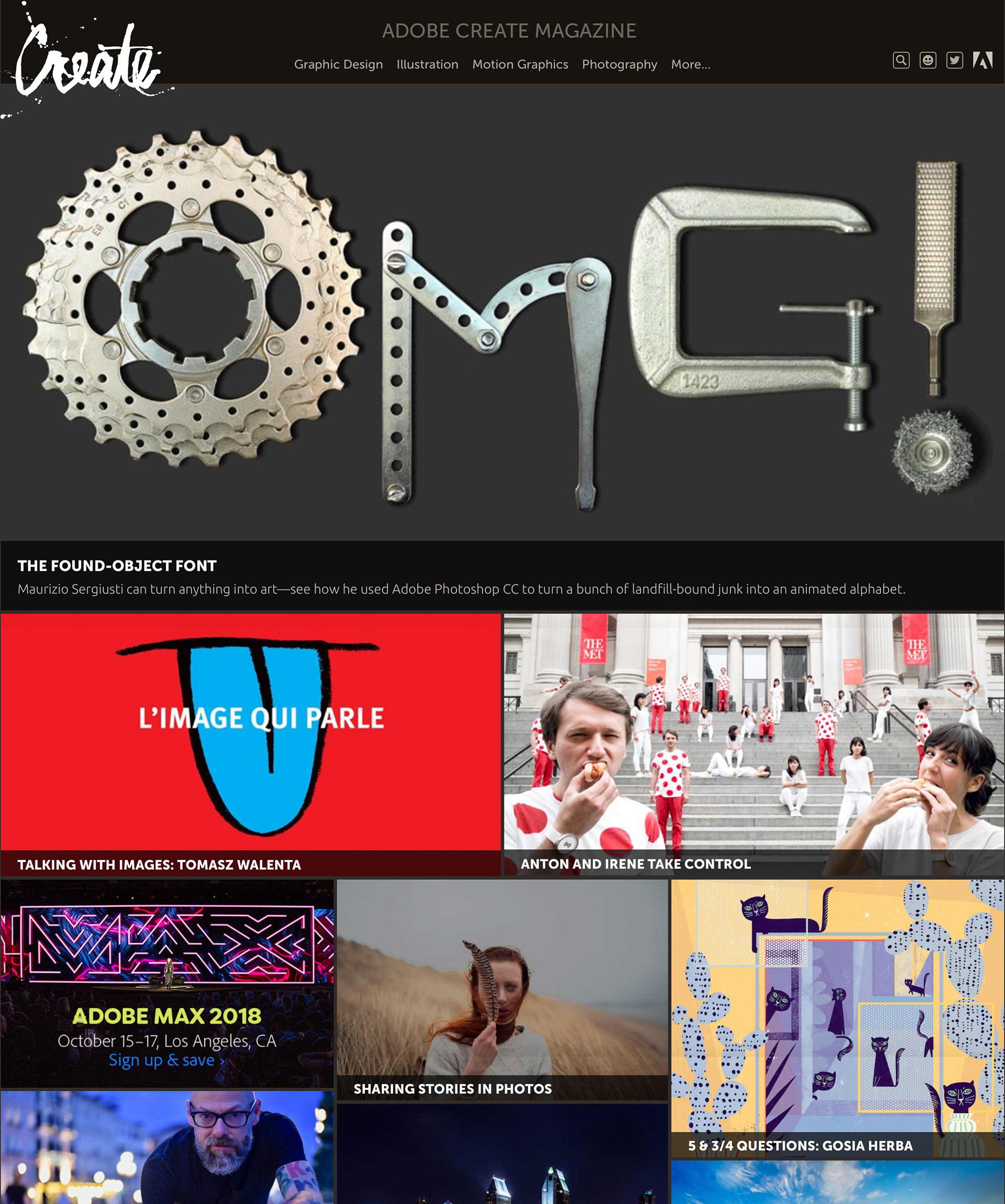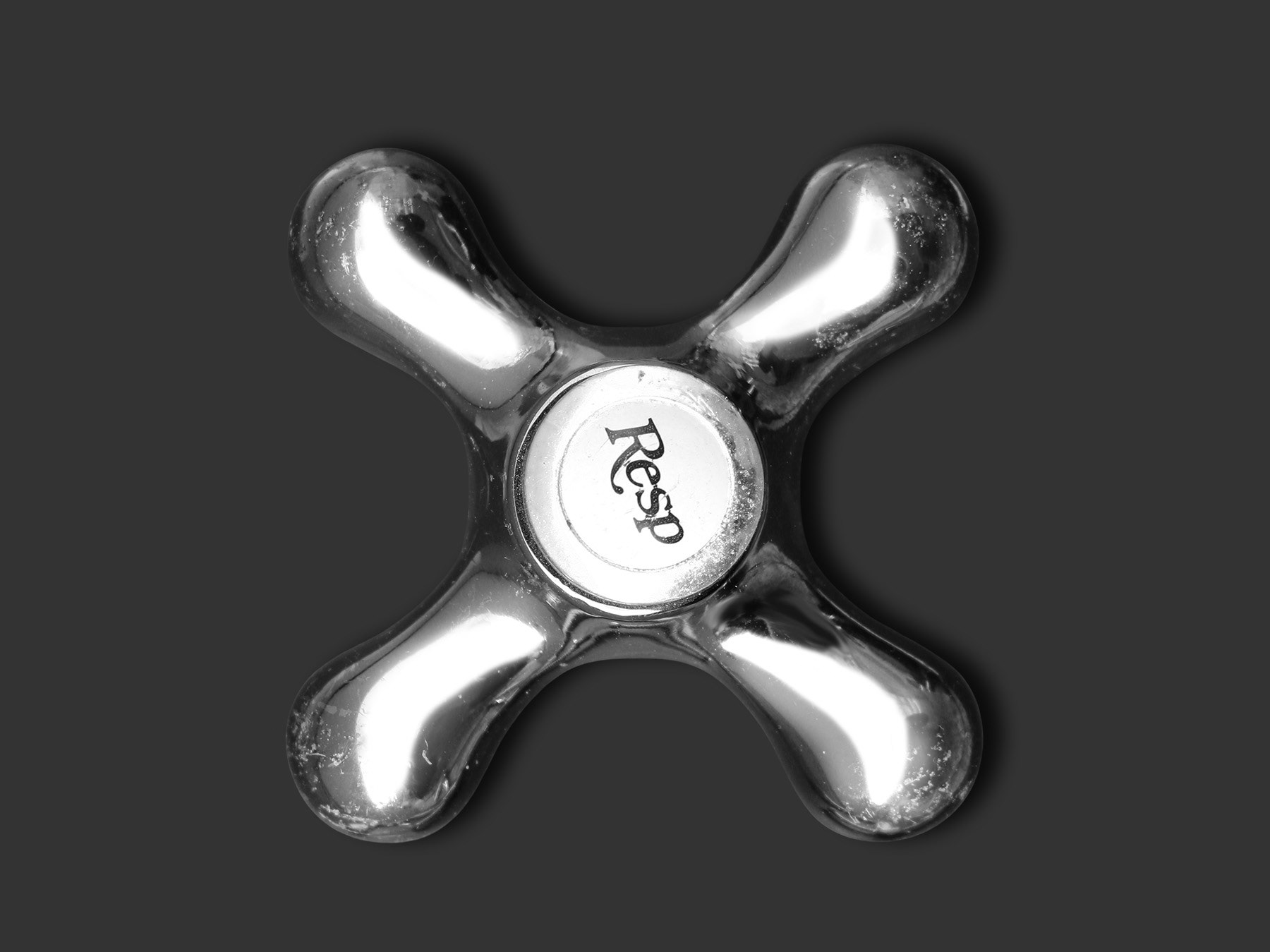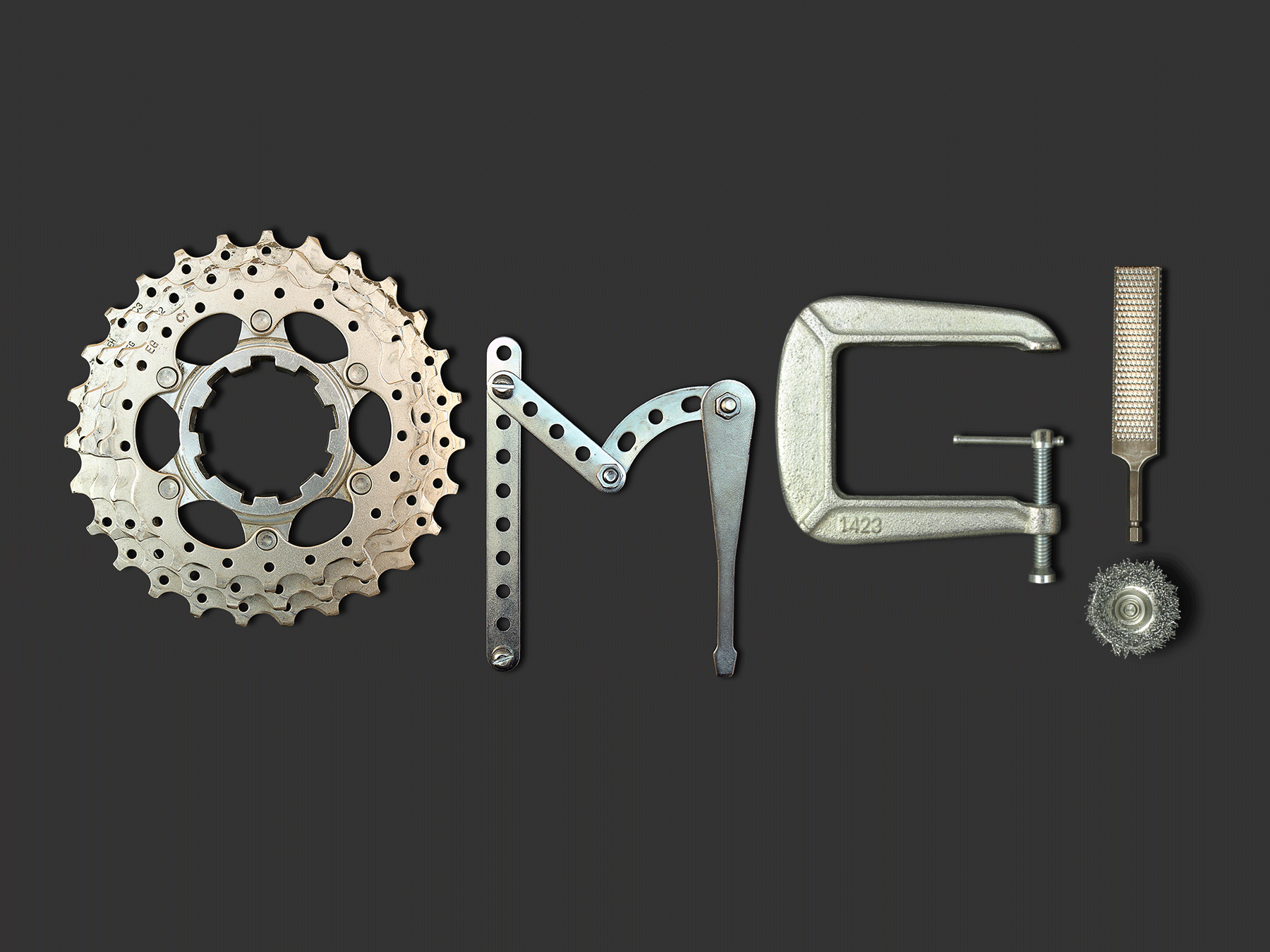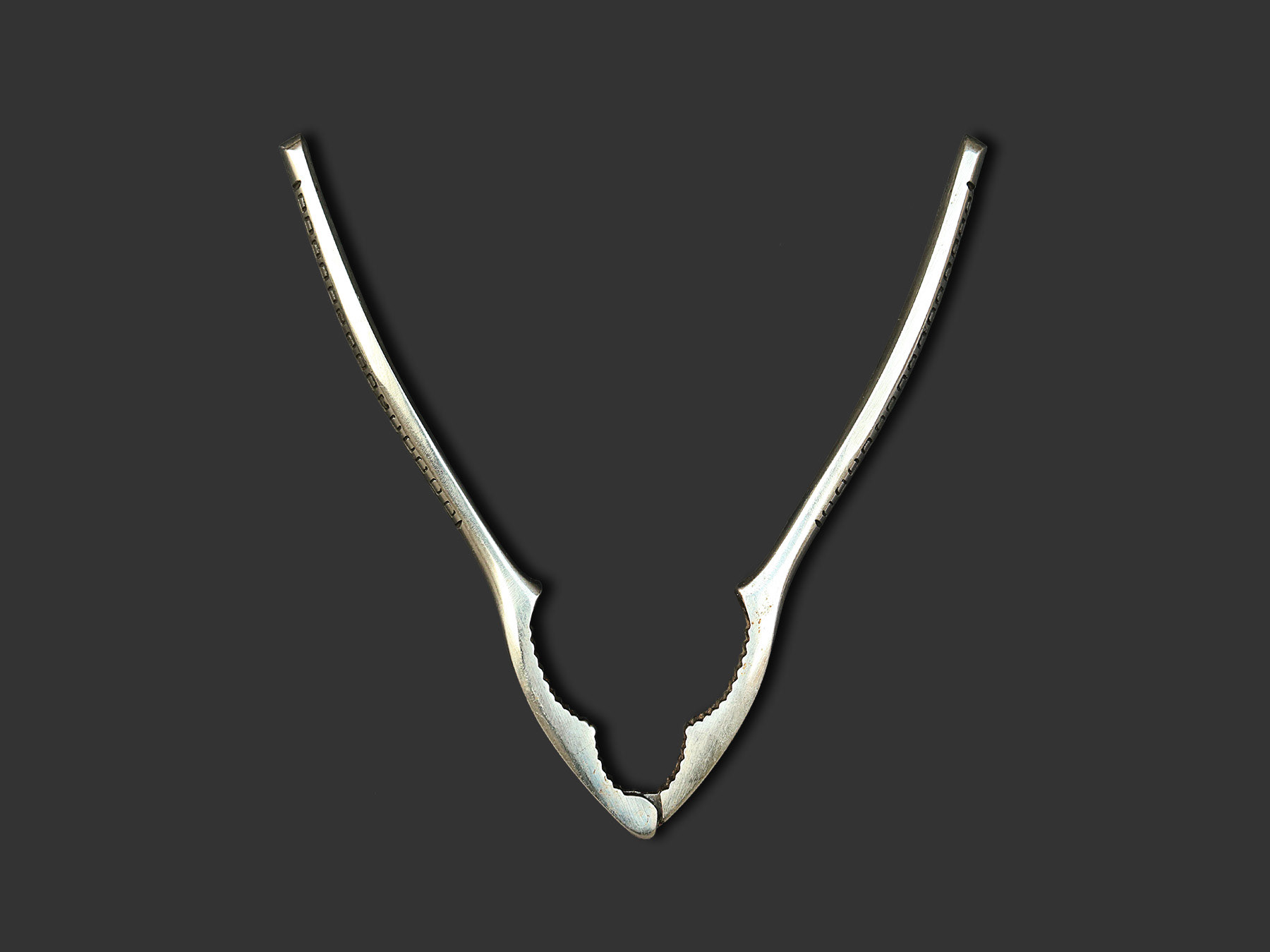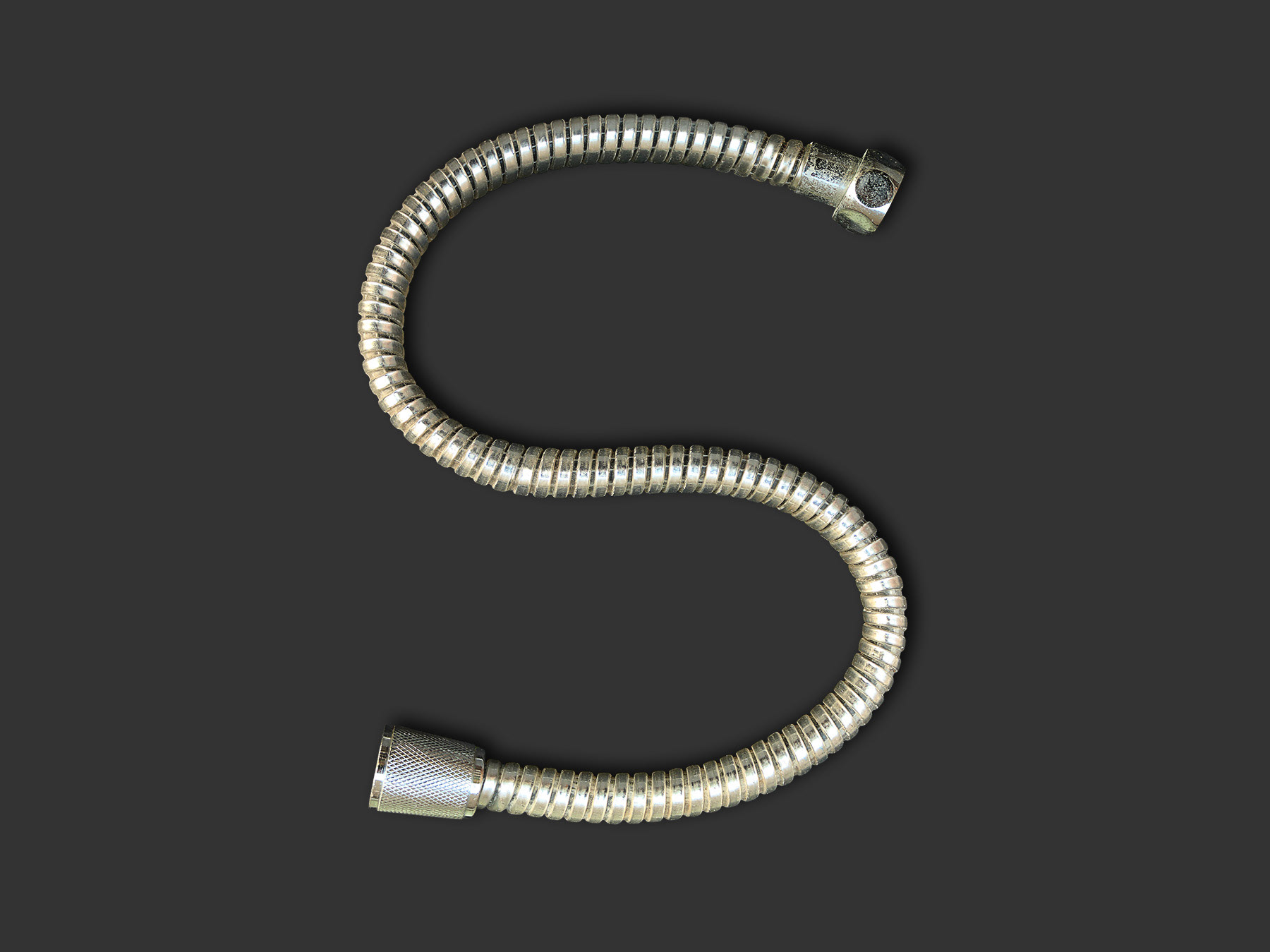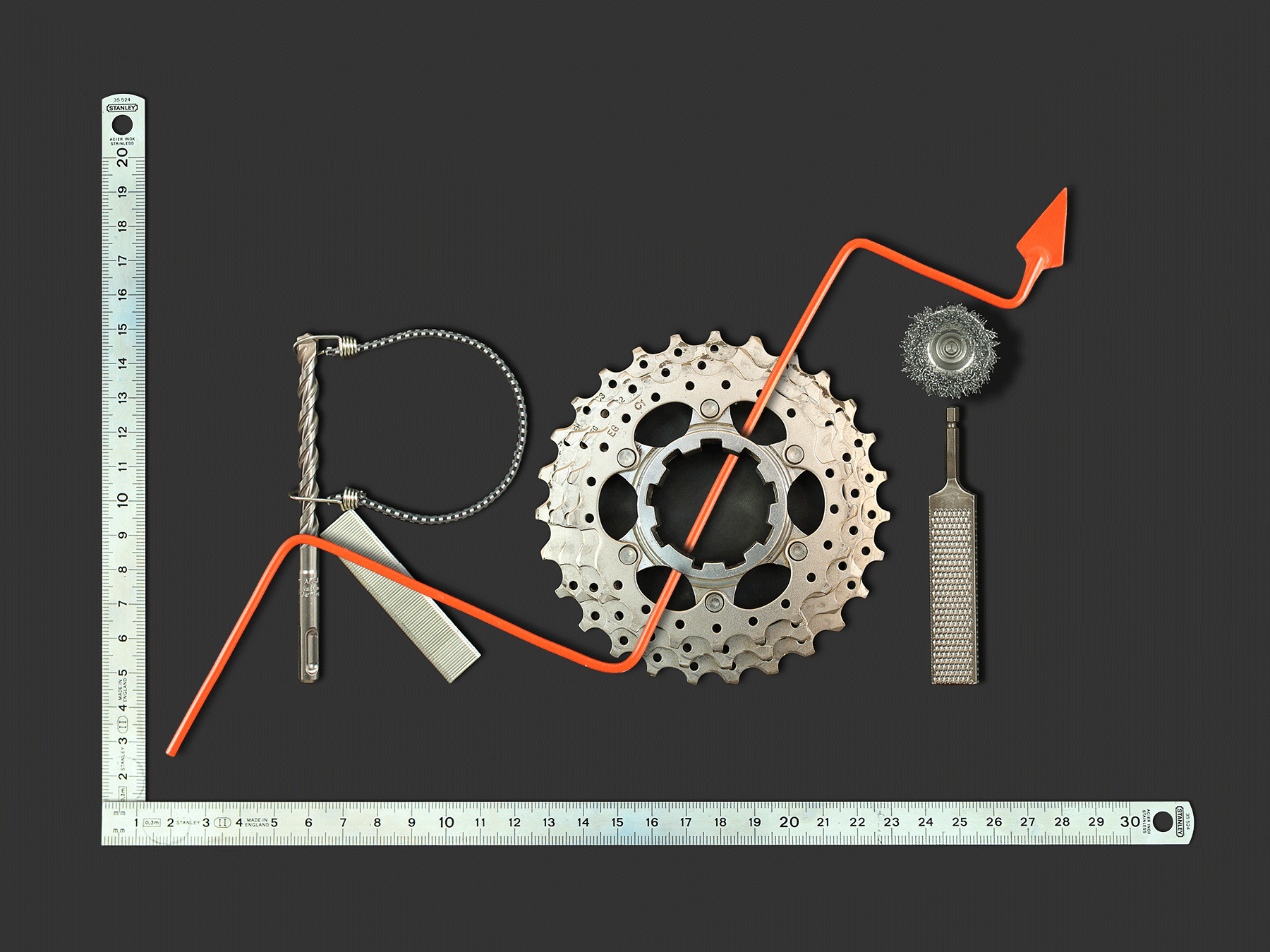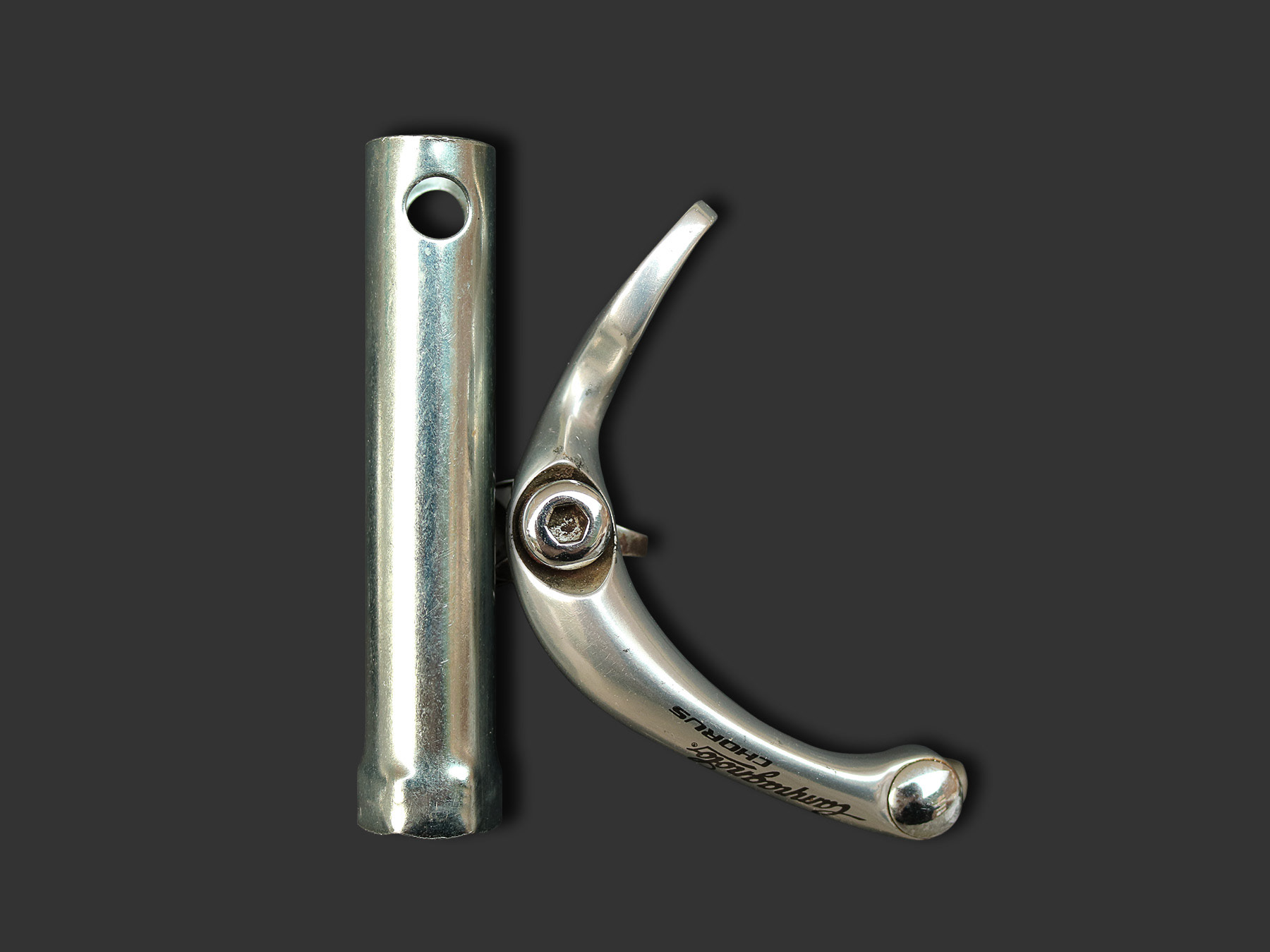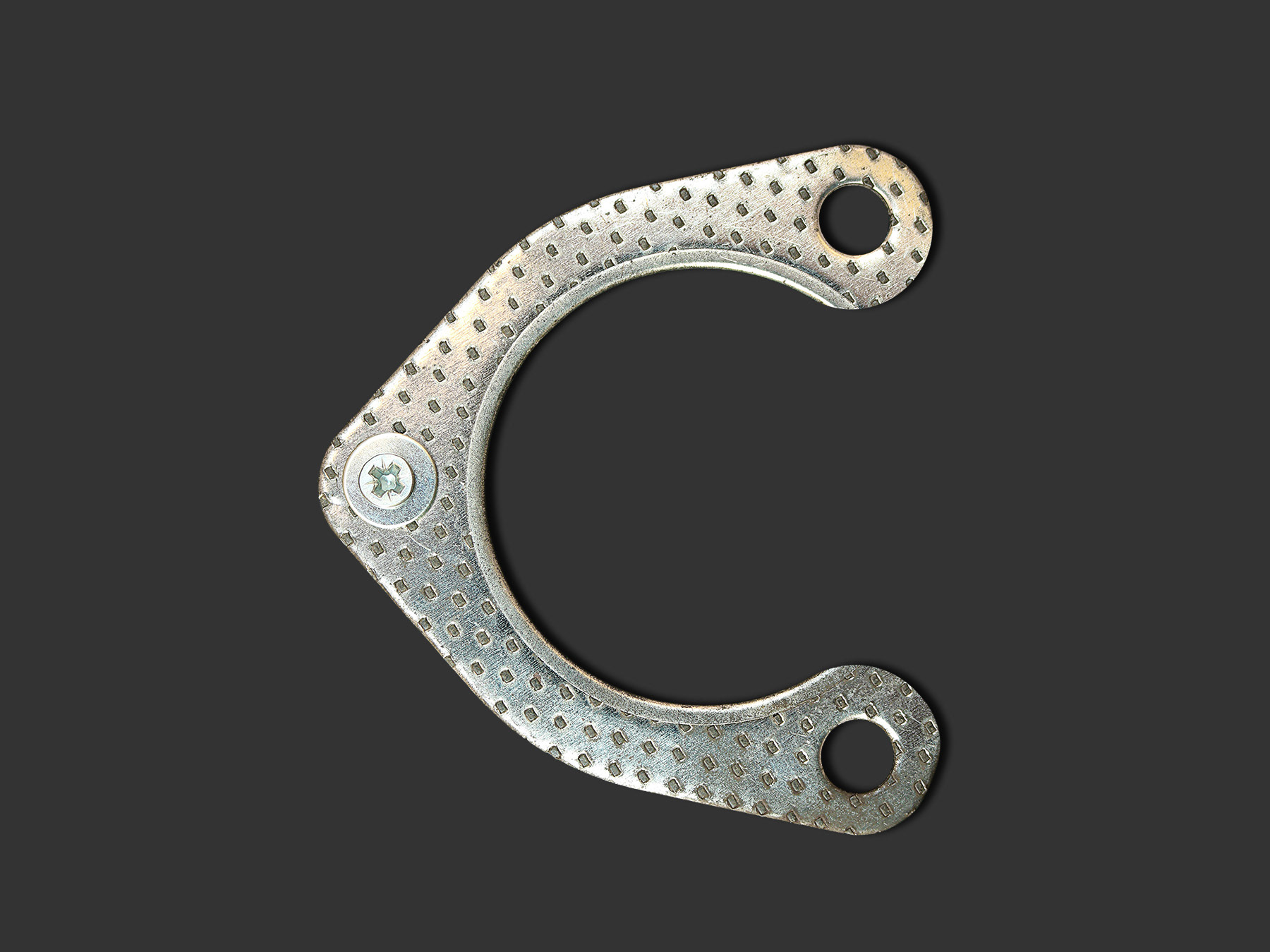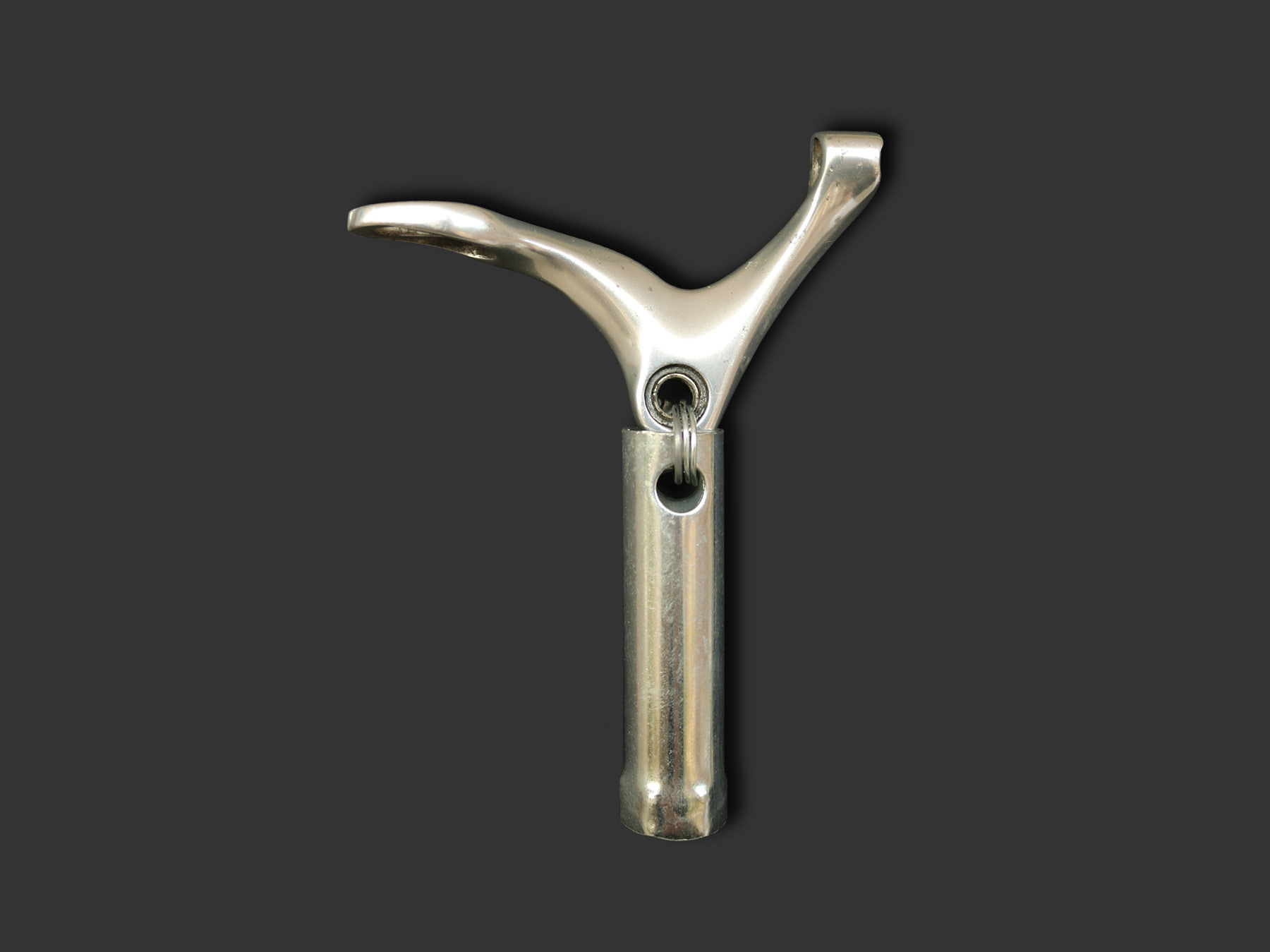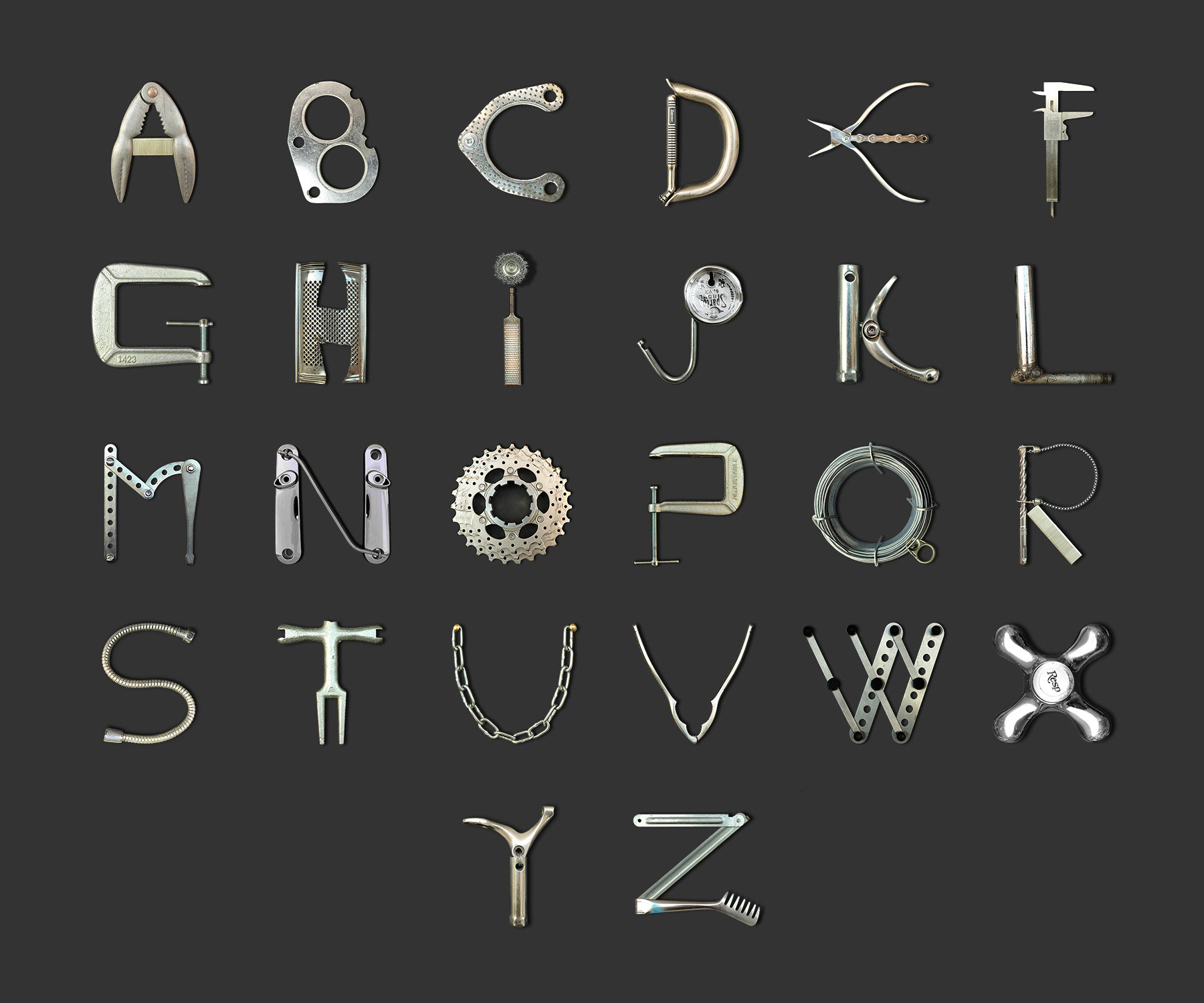
AN ALPHABET DISCOVERED IN OBJECTS
Found Objects Font is a complete alphabet developed between 2018 and 2019 from reclaimed tools, hardware, metal fragments and everyday discarded objects. Some characters were permanently assembled, while most were created by temporarily positioning separate objects and photographing the resulting letter.
Rather than beginning with a drawn typeface, each character emerged from an existing curve, joint, opening or mechanical detail. Pliers become an A, a clamp forms a G and sections of folding rulers produce a W. The objects remain recognisable, allowing their previous functions to coexist with the new typographic reading.
Photographed against a consistent dark background, the twenty-six physical compositions form a unified alphabet despite their different materials and dimensions. The project exists between assemblage, still-life photography and typography, preserving arrangements that were often dismantled immediately after being documented.
Year 2018-2019
Materials Reclaimed tools, hardware, metal components and found objects
Alphabet 26 individual characters
Constructions Temporary arrangements and fixed assemblages
Dimensions Variable​​​​​​​
Medium Found-object typography and photography
THE COMPLETE ALPHABET
Complete Found Objects Font alphabet composed from reclaimed tools, hardware and metal objects.
SELECTED CHARACTERS
Found-object letter A formed from reclaimed pliers and a small metal component.
Found-object letter D formed by temporarily arranging two curved metal tools.
Found-object letter G formed from a reclaimed metal clamp.
Found-object letter J formed from the hook and dial of a reclaimed hanging scale.
Found-object letter M formed by positioning articulated perforated metal components.
Found-object letter O formed from a reclaimed bicycle sprocket.
Found-object letter W formed from articulated perforated metal components.
Found-object letter Z assembled from two reclaimed metal tools.
TYPOGRAPHIC APPLICATIONS​​​​​​​
Financial graphic composed from found-object letters and an ascending red line.
Who doesn't like seeing their ROI grow
OMG composed from reclaimed tools, bicycle parts and metal components.
This OMG is getting a real kick out of things
Happy 2018 composed from reclaimed tools, hardware and metal objects.
Adobe Create Magazine article featuring Scoobafish’s Found Objects Font project.